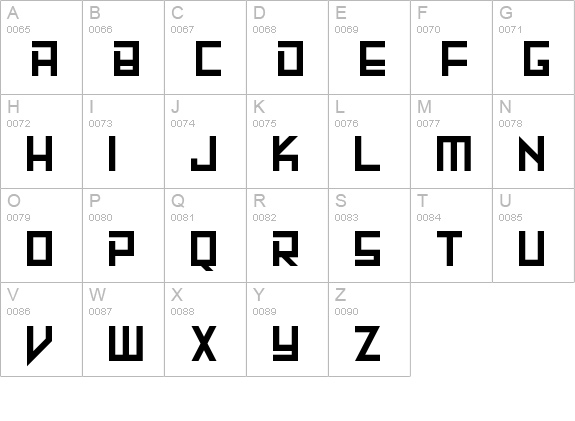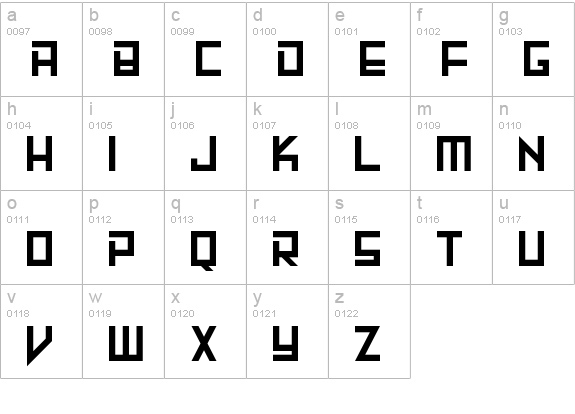
Machine Madness font is a futuristic and edgy typeface designed to evoke a sense of technological advancement and innovation. With its sleek and angular lines, this font exudes a sense of power and precision, making it perfect for projects that require a modern and cutting-edge aesthetic.
Featuring a unique blend of sharp corners and smooth curves, Machine Madness font is versatile enough to be used for a wide range of design projects, from branding and packaging to website headers and social media graphics. Its bold and eye-catching appearance is sure to make a strong impression on viewers and help your message stand out.